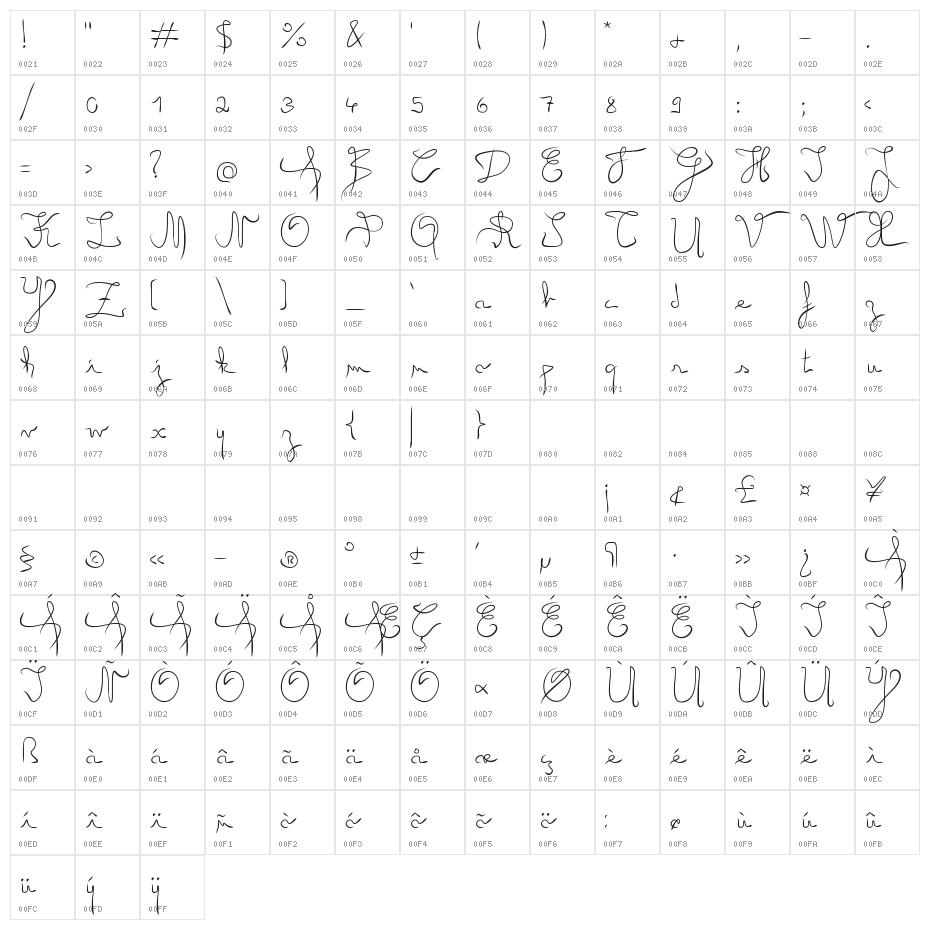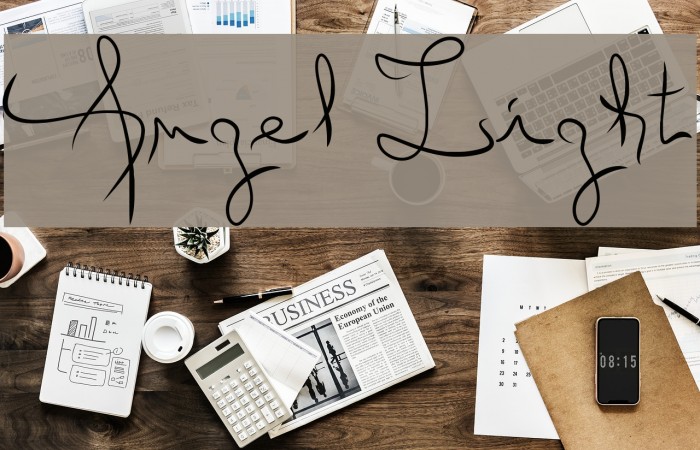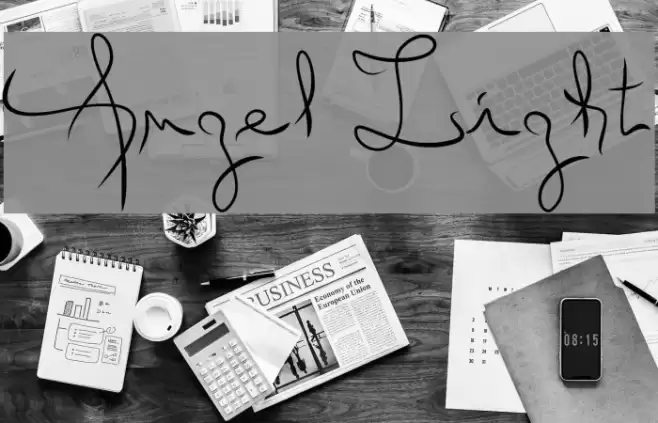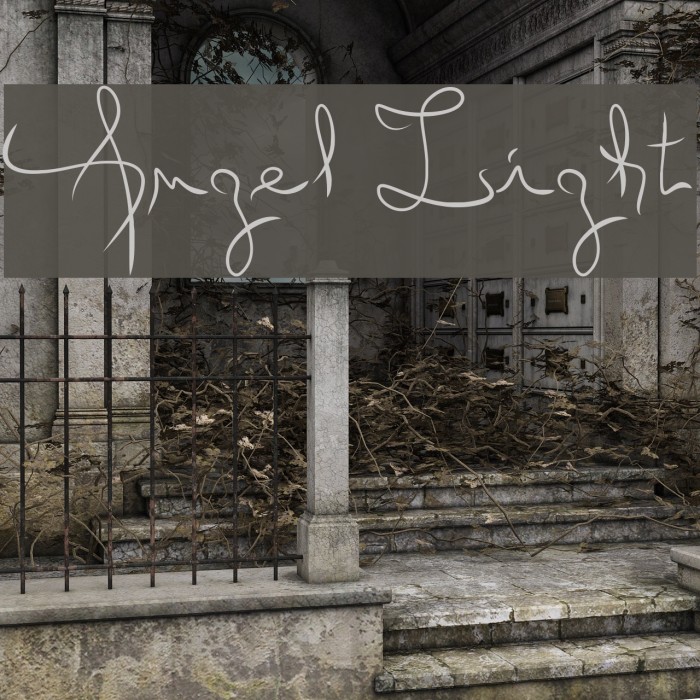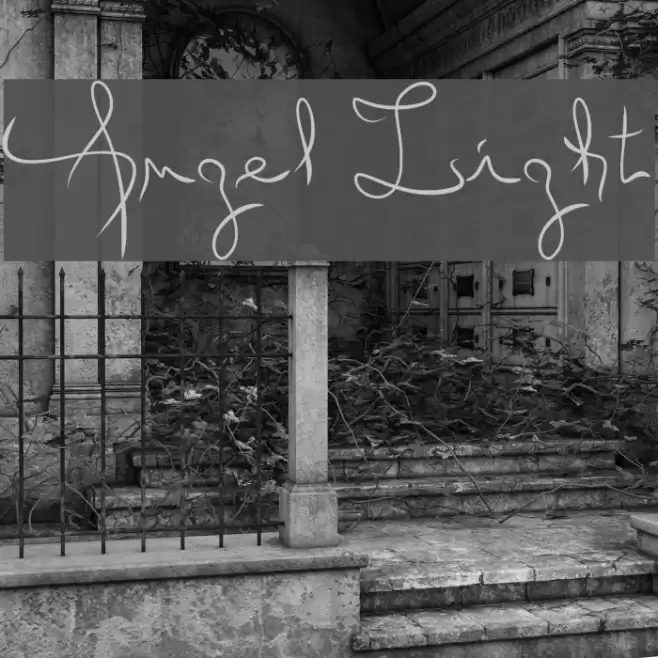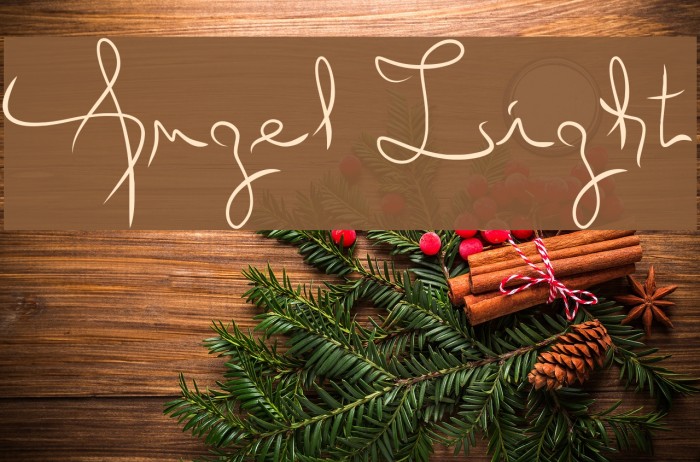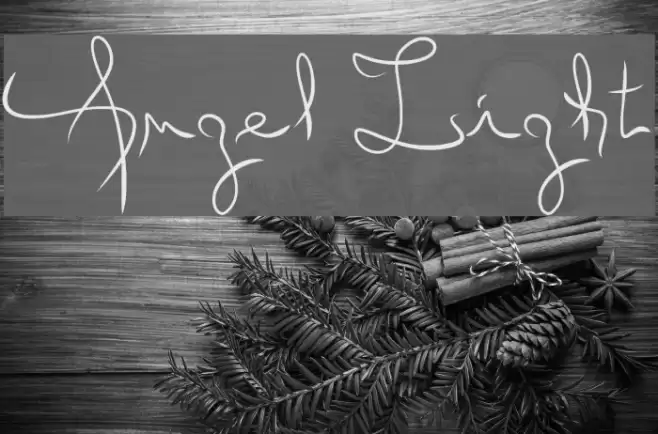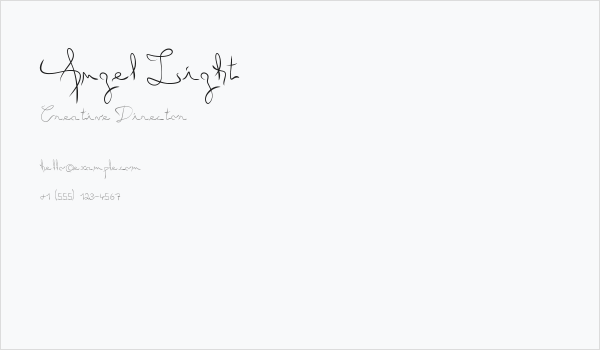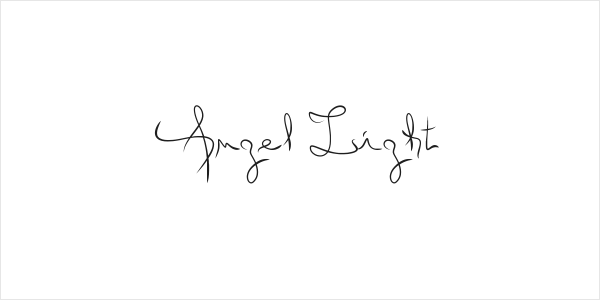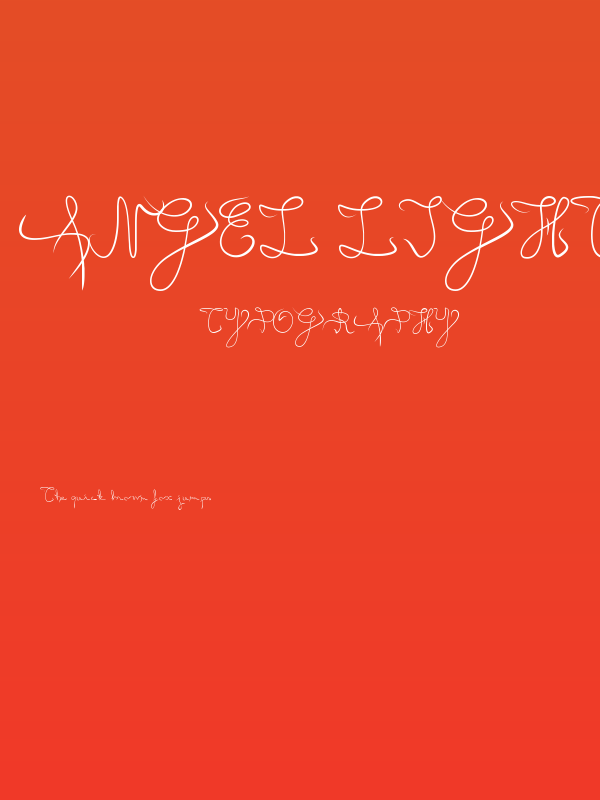
Angel Light Font
Angel Light Description
This font features an elegant and flowing script style, characterized by its intricate loops and swirls. The uppercase letters are particularly ornate, with each character exhibiting unique flourishes that add a touch of sophistication. The lowercase letters maintain a consistent style, offering a harmonious blend of curves and lines that create a cohesive look. Numbers and special characters are designed with the same attention to detail, ensuring a seamless integration with the alphabet. The overall appearance is delicate yet expressive, making it suitable for projects that require a touch of elegance and creativity.